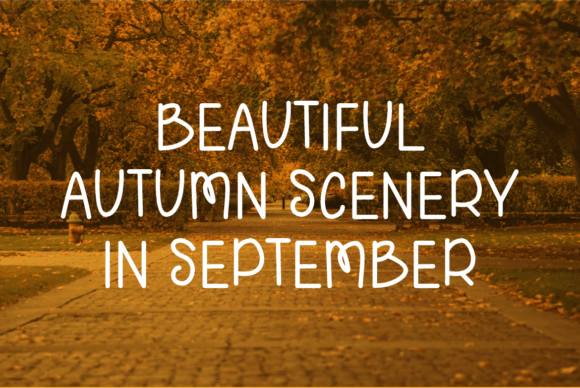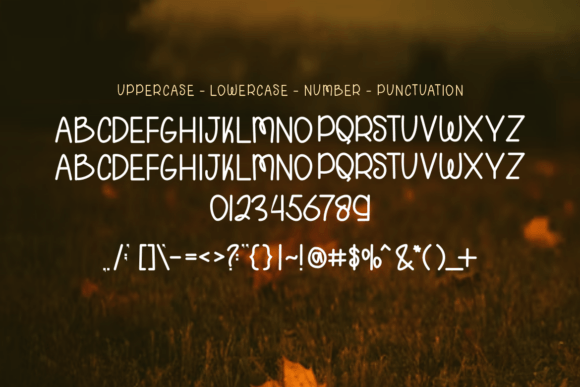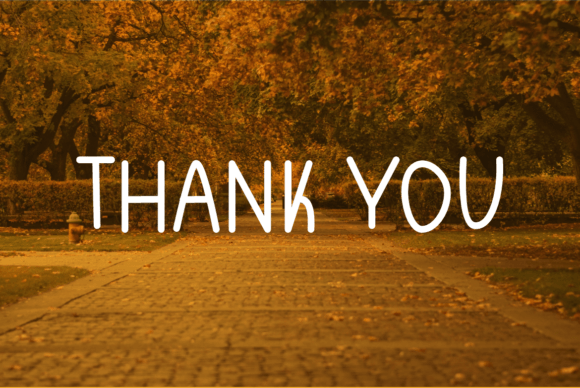
Introduction to Sepratau Font
As designers, we’ve all been there – staring at a blank canvas, trying to bring our vision to life. The perfect font can make all the difference, elevating our creative project from ordinary to extraordinary. That’s why we’re excited to introduce the Sepratau Font, a bold and authentic display font that’s sure to take your branding projects to the next level.
With its high-quality design and versatility, the Sepratau Font is perfect for logos, t-shirt printing, and a variety of creative products. Whether you’re a seasoned designer or just starting out, this font is a valuable addition to your design resource arsenal. And the best part? It’s available for free download, making it an accessible and affordable option for designers of all levels.
Key Features of Sepratau Font
- Unique, hand-drawn style with a transparent background, ideal for backgrounds and overlays
- Sepratau Font is a versatile design resource, perfect for various creative projects, from logos to graphics
Honest Review: Sepratau Font
As a designer, I’m always on the lookout for high-quality design resources to elevate my creative projects. The Sepratau Font is one such resource that caught my attention.
Here’s what works well:
- ✨ The font has a unique and elegant design that makes it perfect for creative projects requiring a touch of sophistication.
- ✨ The transparent background option allows for seamless integration with other design elements.
- ⚠️ The font family is relatively small, which may limit its use in larger-scale projects.
- ⚠️ Some users may find the font’s complexity overwhelming, especially for simple designs.
Overall, I’m impressed with the Sepratau Font’s potential as a design resource. While it may not be suitable for every project, it’s definitely worth considering for high-end creative projects that require a touch of elegance and sophistication.
Alternatives to Sepratau Font
The Great Vibes Font is a high-quality, handwritten font ideal for creative projects requiring a unique touch. It’s perfect for designing quotes, posters, and other visual content. This font is available for free download and can be customized with a transparent background, making it a versatile design resource.
When compared to Sepratau Font, Great Vibes Font offers a more elegant and refined feel, suitable for projects requiring a sophisticated aesthetic. It lacks the boldness of Sepratau Font but excels in providing a more delicate and artistic touch.
Alex Brush Font is a beautiful, calligraphic font suitable for high-end creative projects, such as wedding invitations, luxury branding, and elegant posters. It features a smooth, flowing design that’s perfect for designers seeking a high-quality, free download font with a transparent background.
Compared to Sepratau Font, Alex Brush Font offers a more polished and refined aesthetic, ideal for projects requiring a touch of sophistication and elegance. While Sepratau Font excels in providing a bold and playful feel, Alex Brush Font shines in its ability to convey a sense of luxury and refinement.